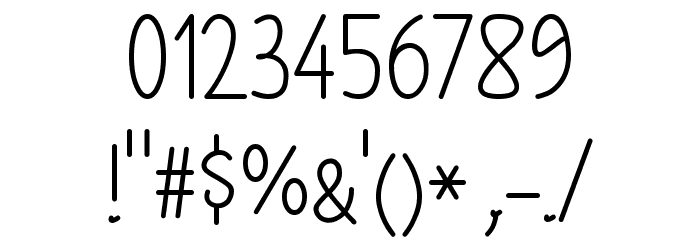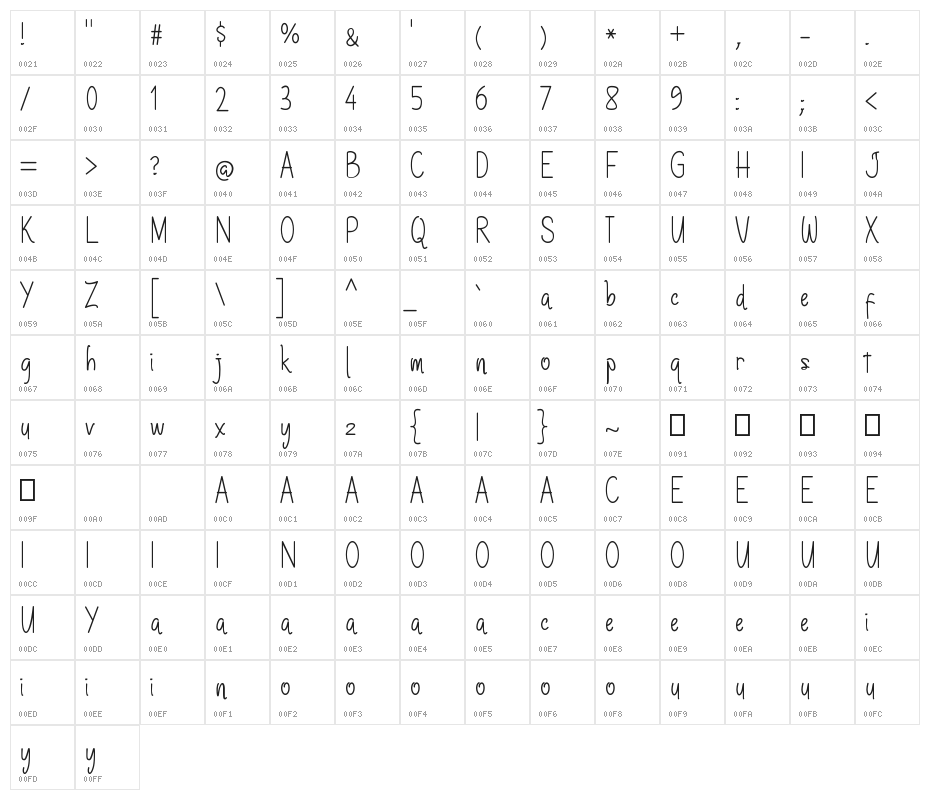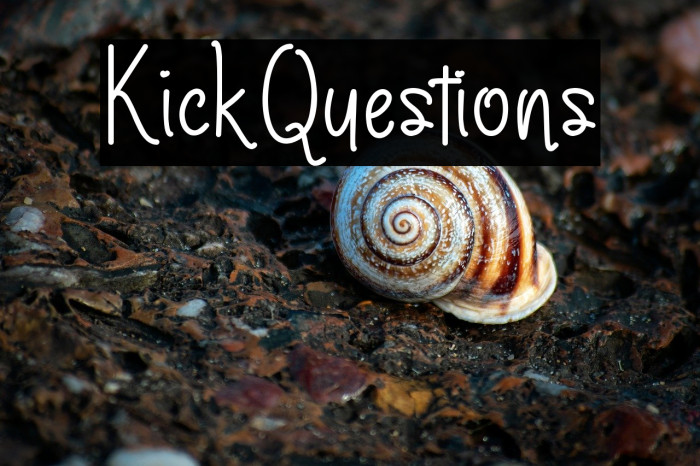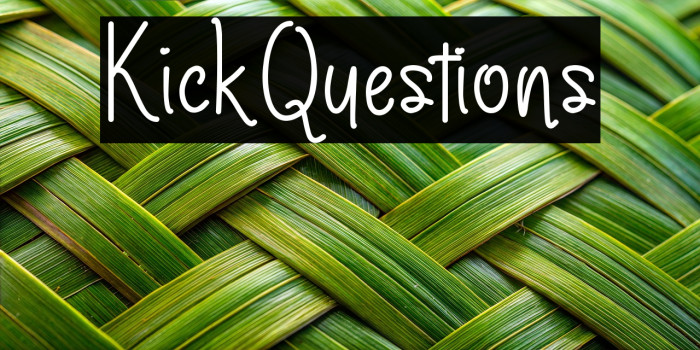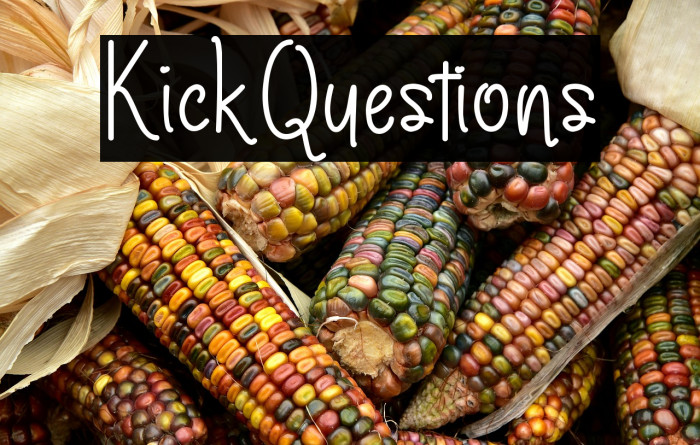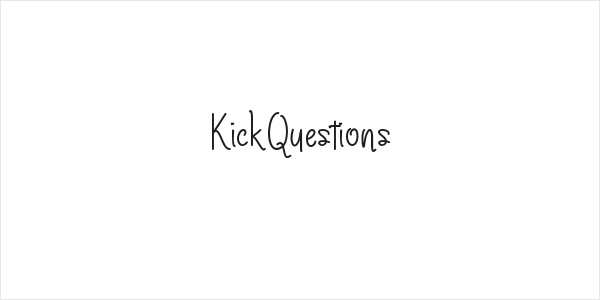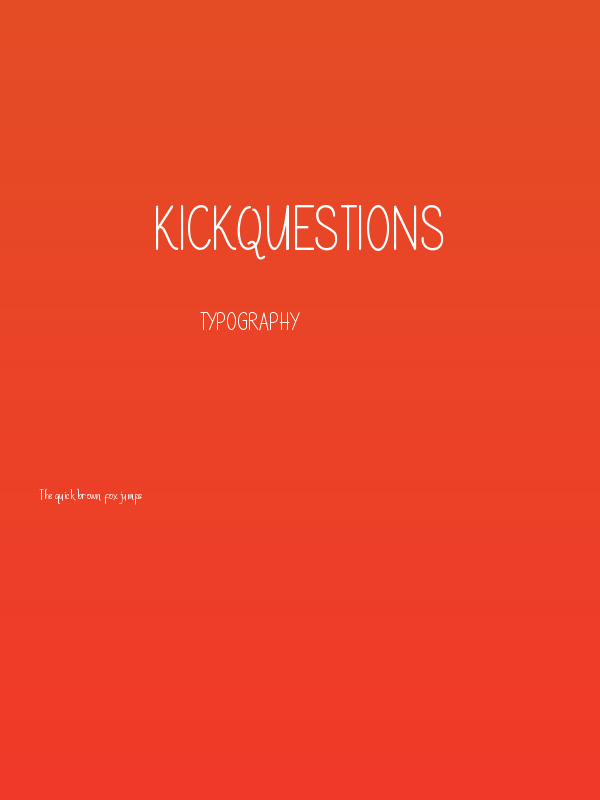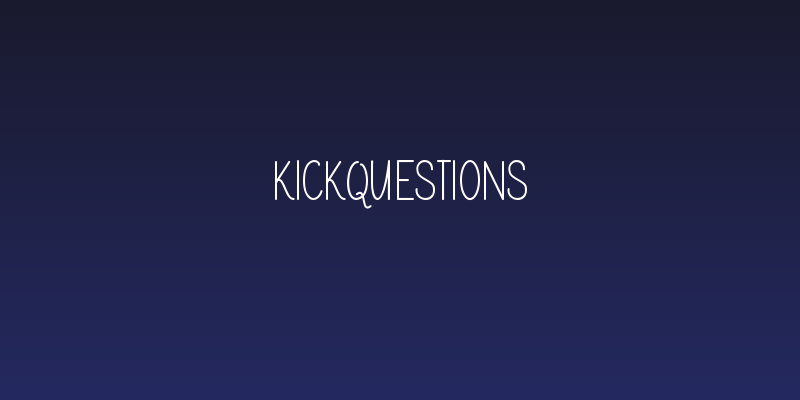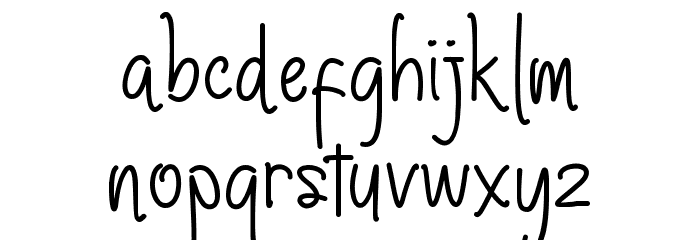
KickQuestions Font
KickQuestions Description
This font features a playful and casual handwritten style, characterized by its tall, narrow letterforms and slightly irregular strokes. The uppercase letters are bold and confident, while the lowercase letters maintain a friendly and approachable appearance. The numerals are consistent with the overall style, offering a cohesive look across all characters. Special characters are included, enhancing the font's versatility. The strokes are smooth and slightly rounded, contributing to its informal and relaxed aesthetic. This font is ideal for projects that require a personal touch, such as invitations, greeting cards, or playful branding materials.
| Proposed Projects | Ideal for invitations, greeting cards, playful branding, and casual design projects. |